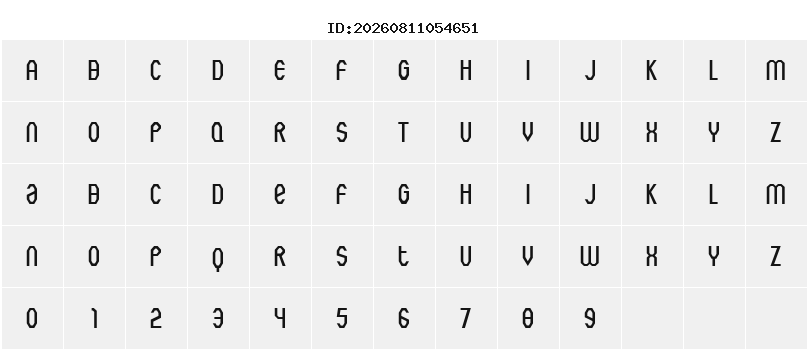
Rothwell Army Preview
• Font Name: Rothwell Army
• Full Font Name: Rothwell Army
• Designer: Ray Larabie
• Manufacturer: Ray Larabie
About Rothwell Army.ttf
Rothwell Army.ttf is a modern, elegant sans-serif font designed for ultimate readability and visual harmony. Perfect for branding, headlines, web design, and print materials.